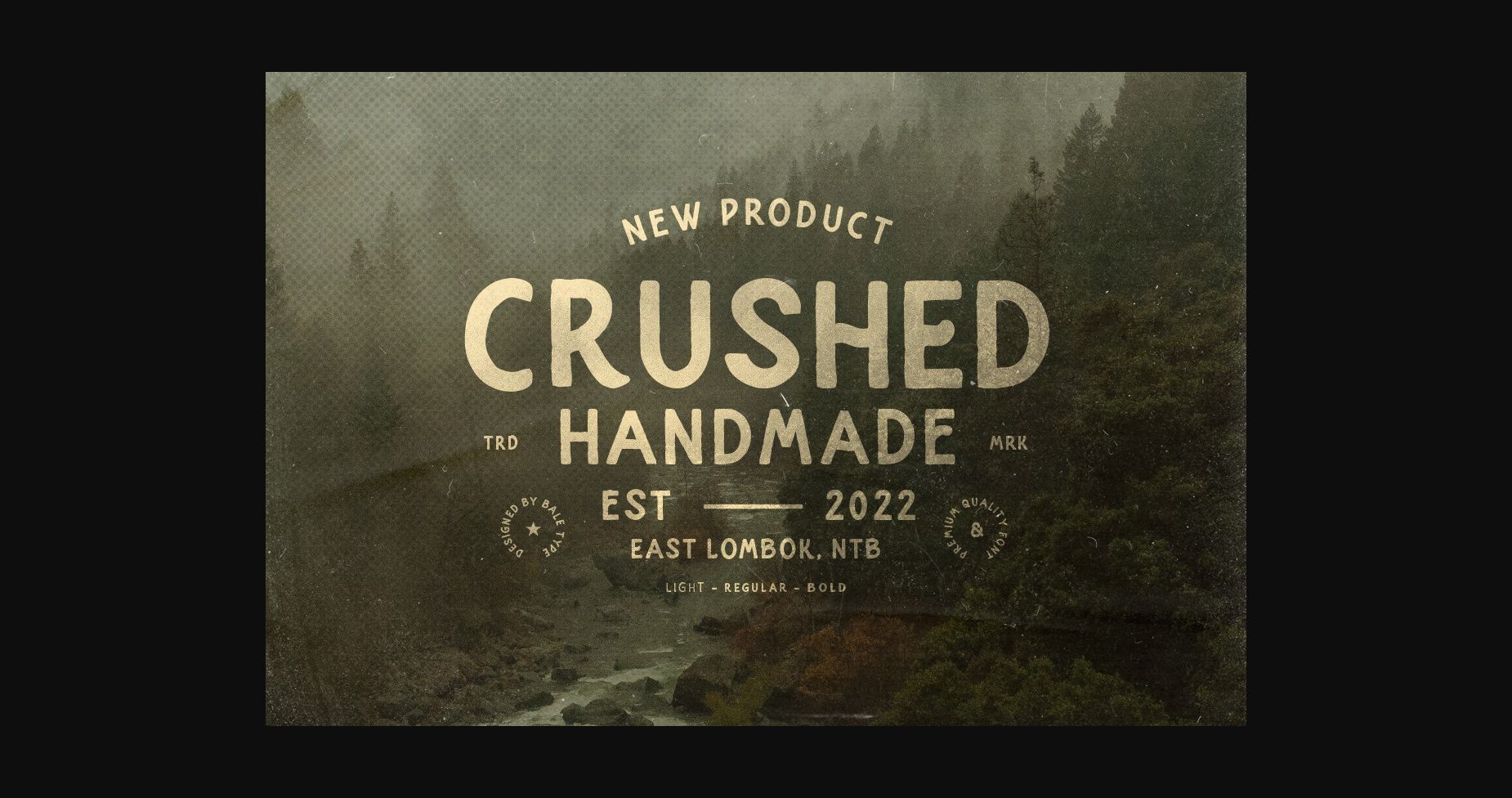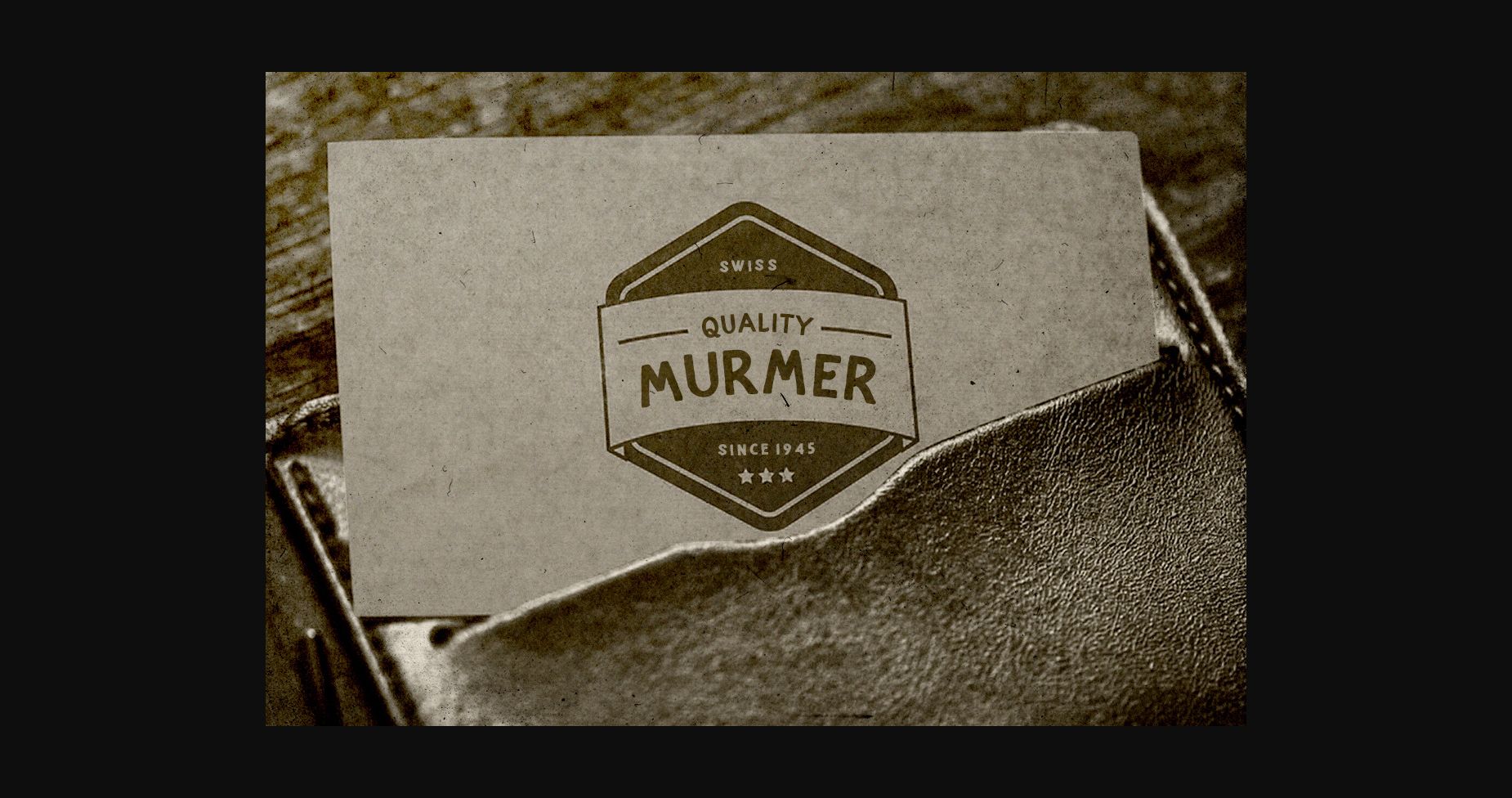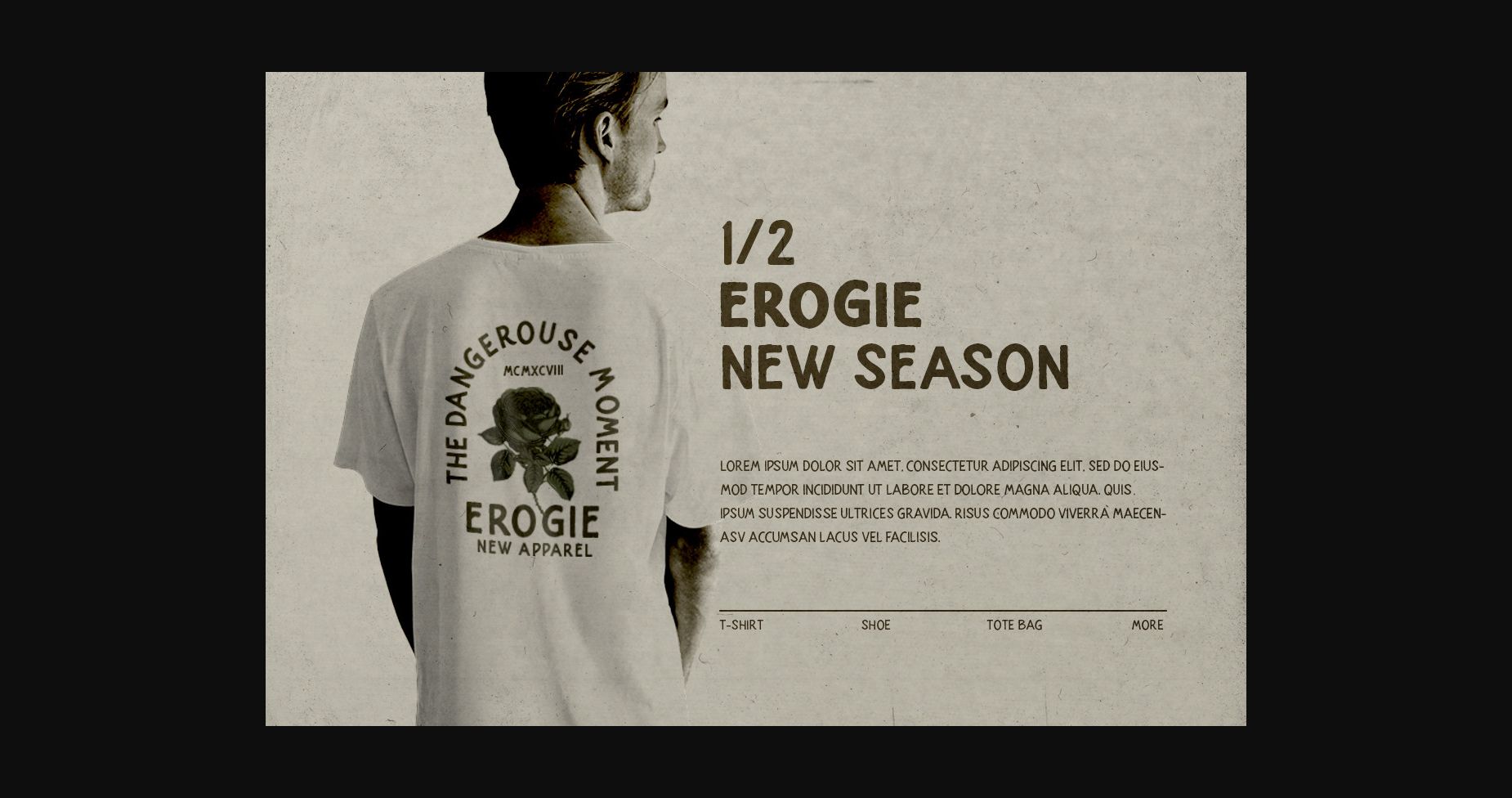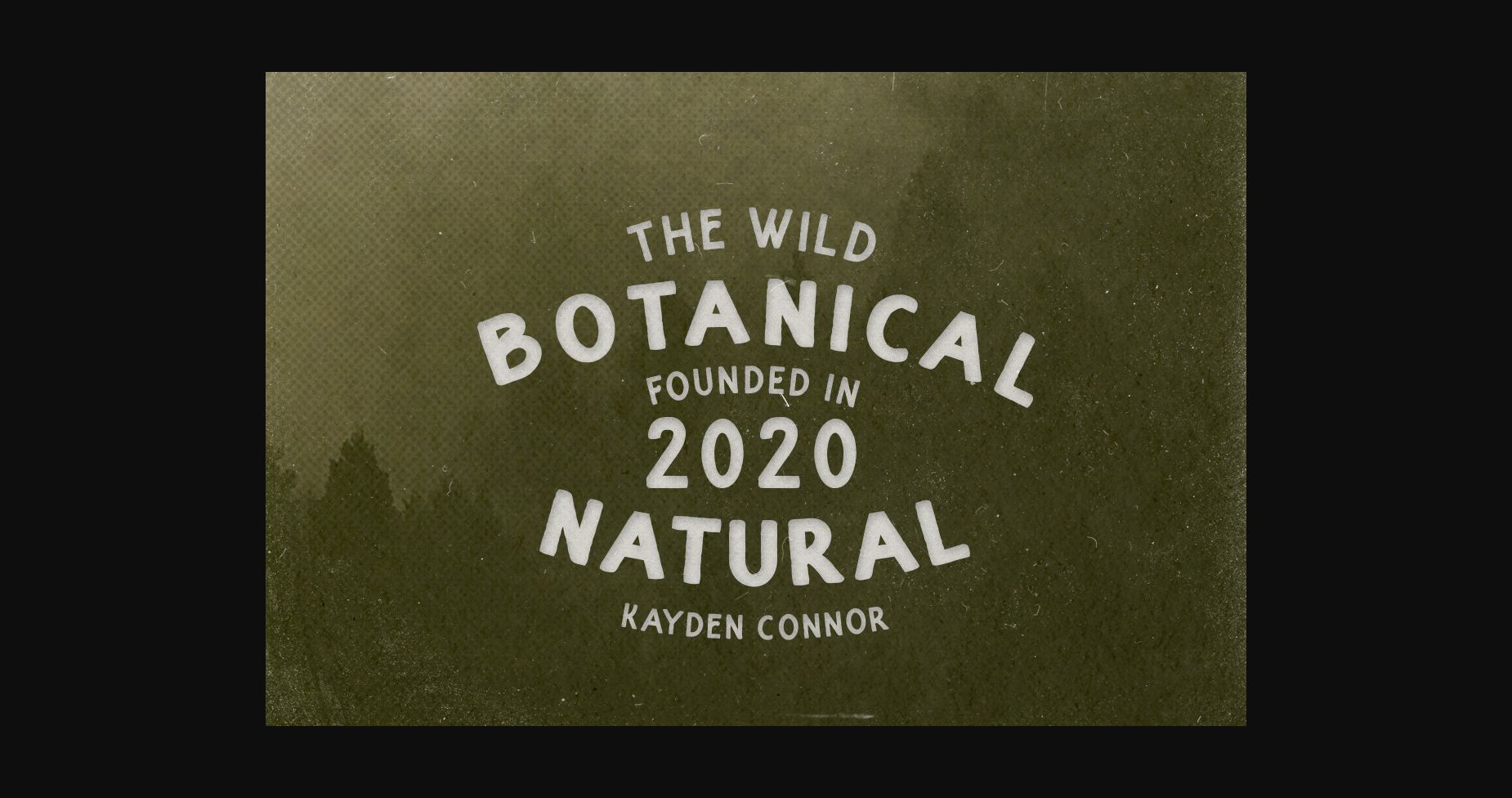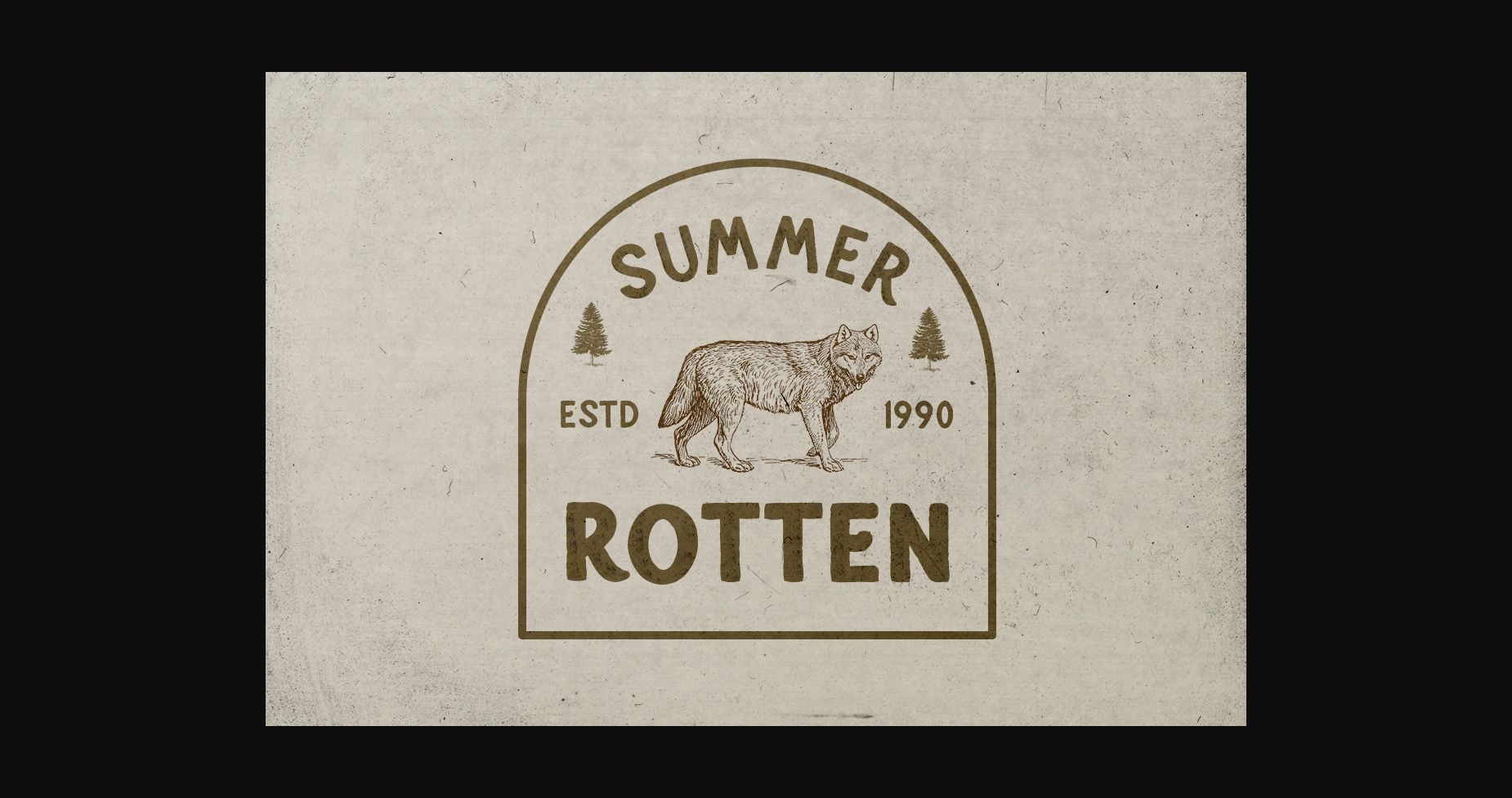
Crushed Font
About Crushed Font
Crushed is a handmade sans family with organic and rough feels. This font included light, regular, and bold. You can use this font for many purposes such as logotype, quotes, or any projects that require adventure and outdoor vibes